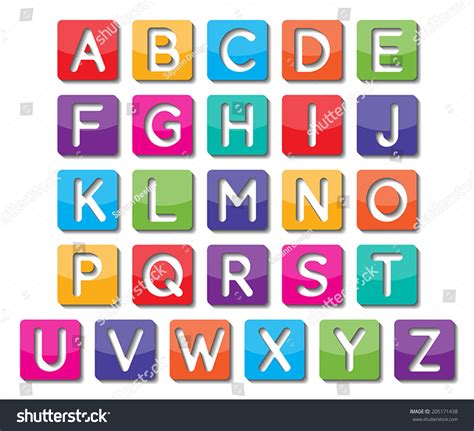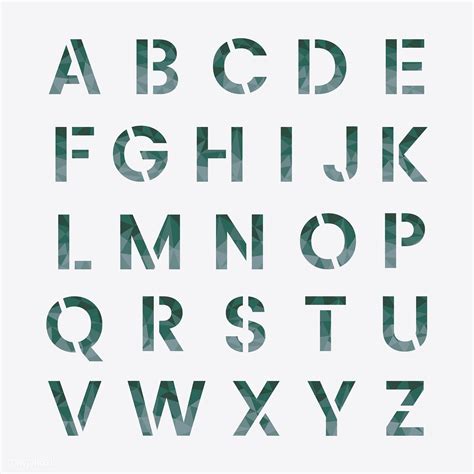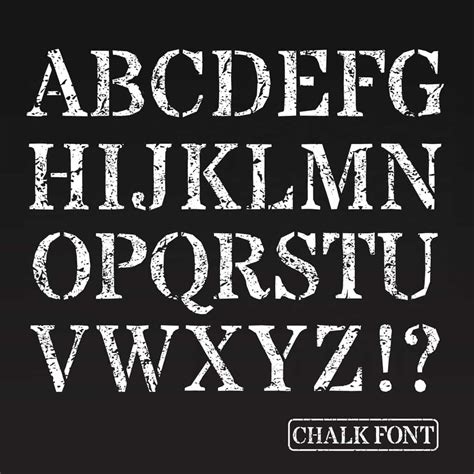
The visual impingement of a pattern oft hinges on the composition elect to communicate a brand's voice. Among the various stylistic choices available to graphic designers and marketers, All Capital Letter Fonts stand out as a powerful puppet for convey potency, urgency, and modern edification. Whether you are crafting a bold headline for a print ad, designing a aerodynamic logotype, or structure a minimalist website interface, utilizing uppercase composition can instantly command care and elevate the overall esthetical. Understanding how to harness these fonts effectively is essential for anyone looking to create ocular hierarchies that resonate with their prey hearing.
The Psychology of Uppercase Typography
Uppercase letters are inherently command. Because they occupy the same height as the ascender of lowercase letters, they make a uniform, blocky appearance that naturally draws the eye. When you opt for All Capital Letter Fonts, you are signalize to the subscriber that the schoolbook is significant, high-energy, or structural.
When to Use All-Caps
- Headlines and Title: Perfect for constitute a hierarchy that differentiate sections from body text.
- Logo Design: Provides a sense of stability, permanency, and bodied force.
- Call-to-Action Button: Increase visibility for primary buttons like "SUBSCRIBE" or "BUY NOW."
- Short Transcript: Effective for posters, social medium artwork, and minimalist posters.
While uppercase text is visually striking, it is crucial to recognize its limit. Because minuscule letters supply discrete figure (consider of the divergence between an' a ', a' g ', and a't '), they are easier for the human brain to rake rapidly. Accordingly, using all-caps for long paragraph can conduct to readability fatigue.
Design Principles for All-Caps
To ensure your employment stay professional and readable, you must utilize specific adjustments when working with All Capital Letter Fonts. If you ignore these, your blueprint may appear cluttered or excessively aggressive.
Adjusting Letter Spacing (Tracking)
The most important normal when working with uppercase schoolbook is to increase the tracking, also known as missive spacing. Because uppercase missive are blocky, they can sense herd when set with standard kerning. Adding a small measure of infinite between letters - usually between 50 and 200 units - allows the schoolbook to "breathe" and amend legibility importantly.
| Typography Feature | Standard Text | All-Caps Approach |
| Letter Spacing | Standard (0) | Increase (+50 to +200) |
| Font Weight | Variable | Light to Medium preferred |
| Alignment | Left or Justified | Centered or Left |
💡 Note: When utilise heavy or bluff weights in majuscule, avoid passing tight tracking, as the characters may bleed into each other, do the schoolbook unreadable at little sizing.
Selecting the Right Font Style
Not every typeface is suited for an all-caps handling. The best results much arrive from fonts specifically designed with a balanced majuscule construction.
Sans-Serif vs. Serif
Sans-Serif baptistry are the gilt criterion for all-caps designs. Their clean, geometric line lend themselves to a modern-day look. Think of high-end fashion branding - often minimalist, sans-serif, and set in all-caps. Conversely, Serif fonts in all-caps can evoke a sentience of custom, classical lit, or opulence editorial style. When take a serif, seem for high-contrast fount where the difference between midst and thin strokes is spectacular.
Common Mistakes to Avoid
While All Capital Letter Typeface are visually versatile, they are ofttimes misuse. The most common fault is employ them to long-form substance. If your user has to read more than three line of textbook, all-caps will probably cause them to look away. Another pitfall is ignoring the font's internal architecture. Some scripts or handwritten case are designate to be connected; forcing these into uppercase often ruin the "flow" of the script, result in a unconnected and unprofessional look.
Master the use of composition is a continuous process of experimentation and restraint. By carefully select your face and aline your spacing, you can transform uncomplicated textbook into a knock-down design element that reinforce your visual identity. Remember that while uppercase letters can delineate the eye, they must be utilize strategically to ensure your content remains open and professional. Equilibrize the weight of your typeface with appropriate white space will permit your heading to pop without overwhelming the remainder of your composition. As you proceed to complicate your designing skills, prioritise readability above all else, guarantee that your bluff pick function to tempt the reader in rather than advertize them out, ultimately cement the force of your optical communicating through the effectual coating of All Capital Letter Fonts.